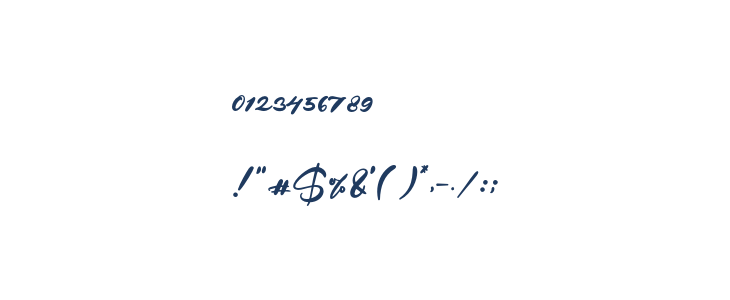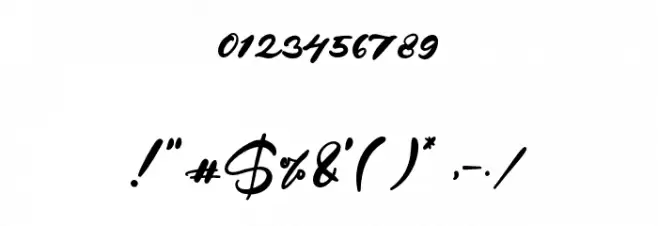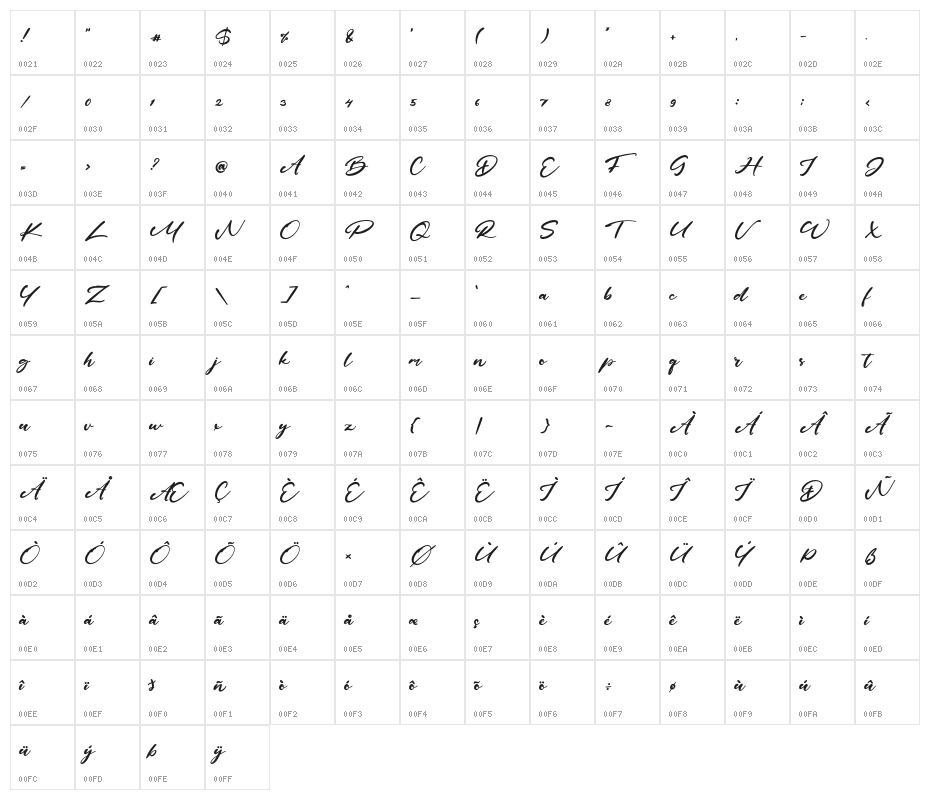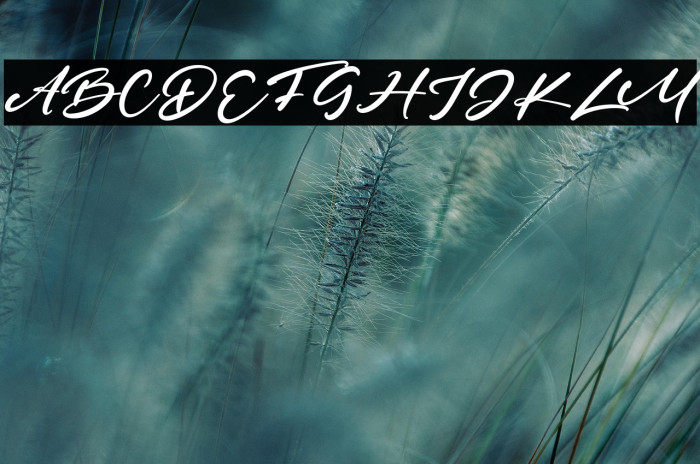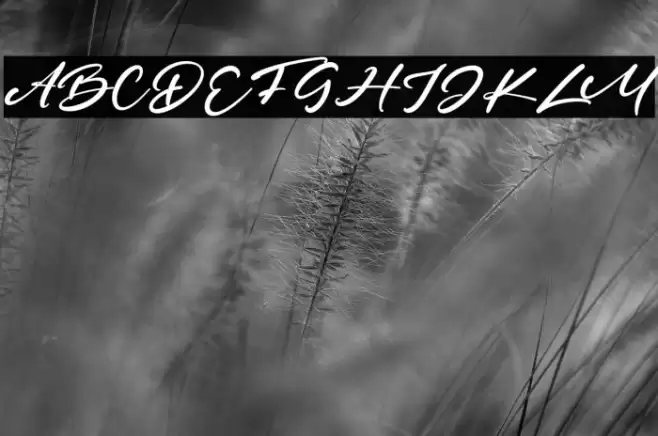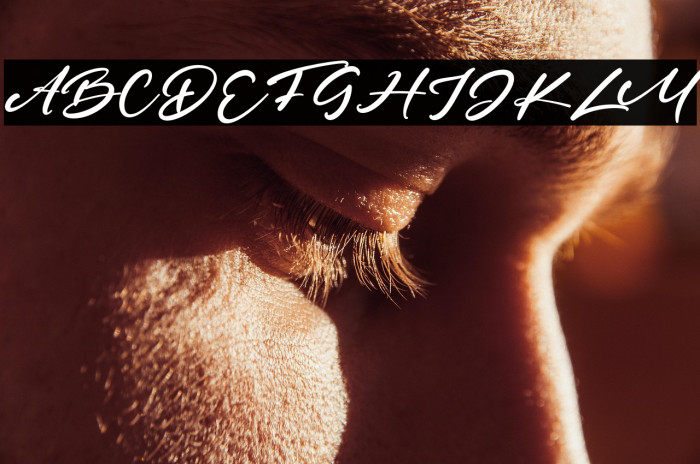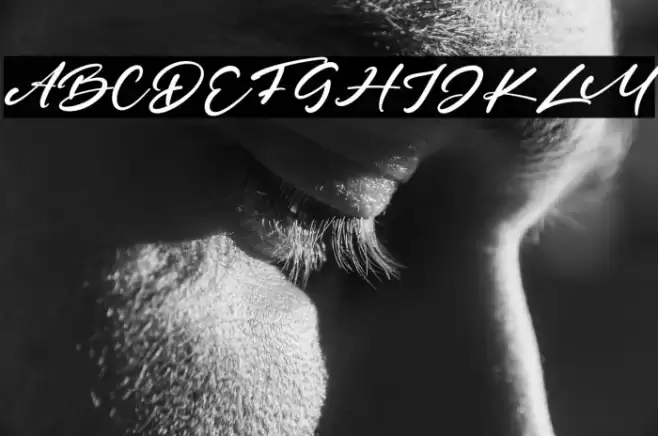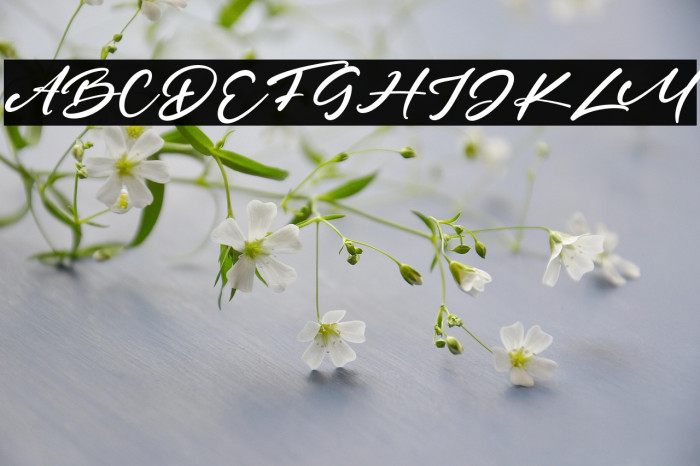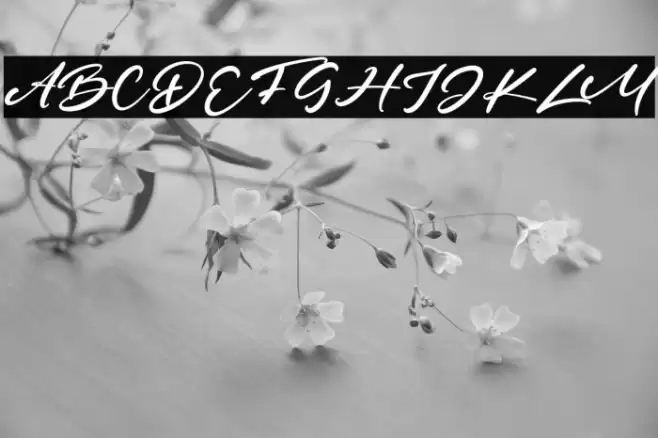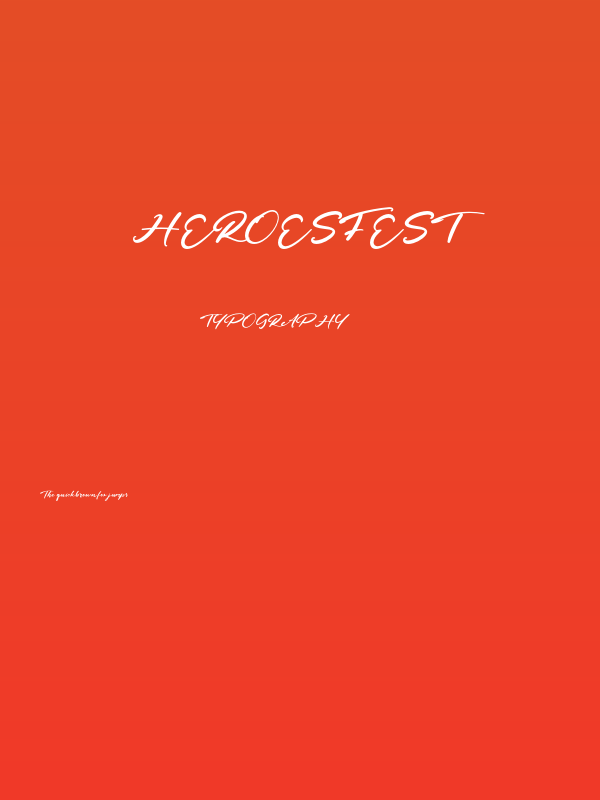
HeroesFest Font
HeroesFest Description
This font features a flowing, cursive style that exudes elegance and sophistication. The letters are interconnected, creating a seamless and fluid appearance. The uppercase characters are bold and prominent, while the lowercase letters maintain a consistent flow with slightly exaggerated loops and curves. The numbers and special characters complement the overall design, maintaining the same cursive flair. This font is ideal for projects that require a touch of class and personality, such as invitations, branding, and decorative headlines.
| Use Case | Headlines, Invitations, Logos |
| Proposed Projects | Ideal for wedding invitations, branding, logos, and decorative headlines. |